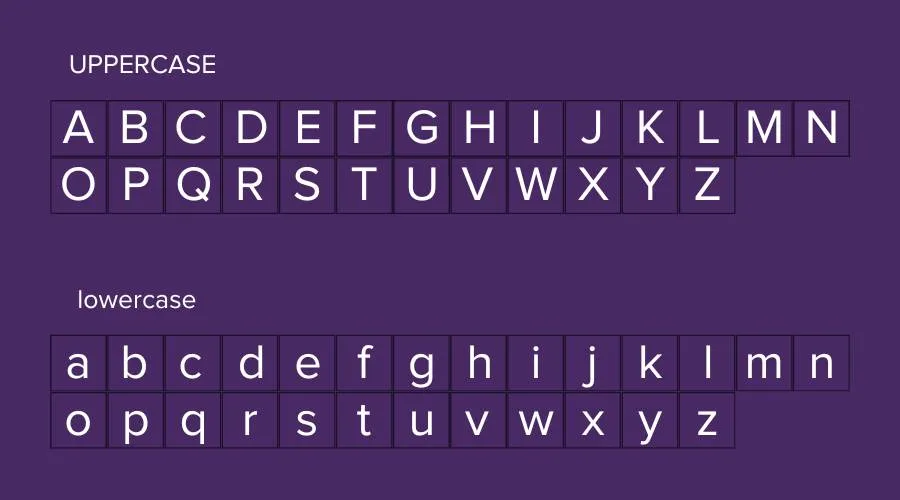
Proxima Nova Font
About Proxima Nova Font
Proxima Nova Font is created by the talented designer Mark Simonson and it is a Sans Serif text style. This font was utilized in numerous web applications.
Multiple display designs can make use of its innovative classic style appearance. If you combine it with another dm sans font, it looks fantastic.
Typeface has a fantastic style and a trendy design. Its look is different and cool, and it features about 150 characters in a standard typeface. It is a font with a logo design.